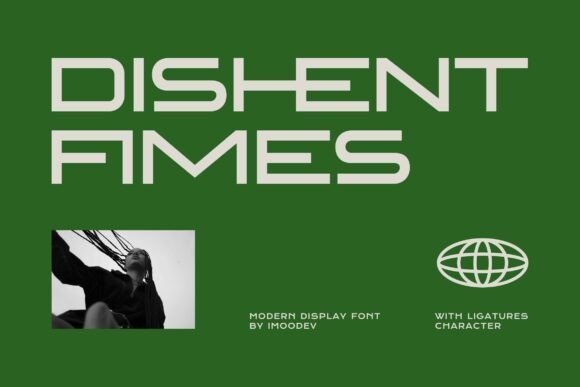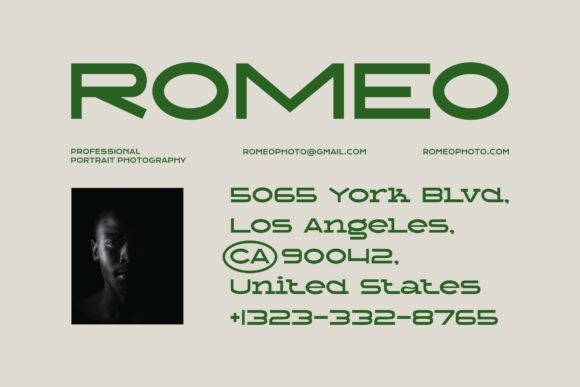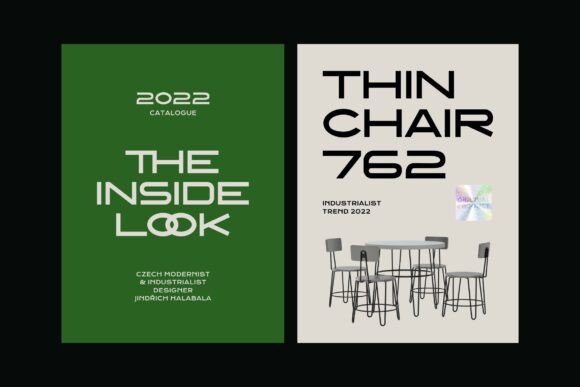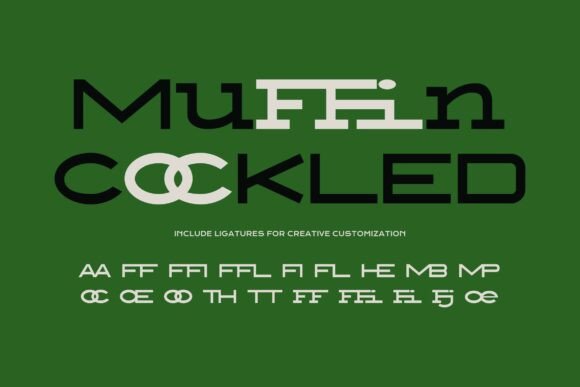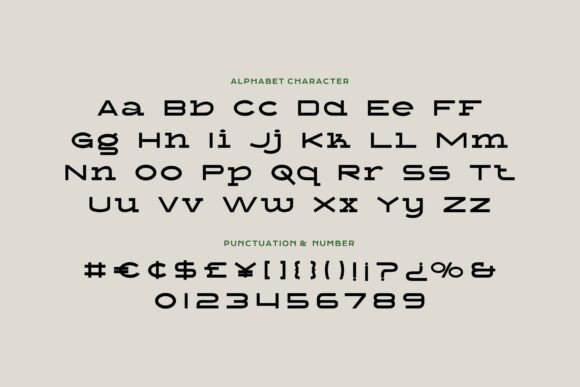
Unlock the Power of Modern Typography with the Didhent Fimes Font
Have you ever stared at a blank design canvas, searching for the perfect font to elevate your project and leave a lasting impression? We’ve all been there. As creatives, we crave fonts that not only convey our message but also reflect our unique style and vision. This is where the Didhent Fimes Font comes in – a futuristic and extended typeface designed to make a bold statement in the world of modern design.
With its sleek, geometric structure and industrial undertones, the Didhent Fimes Font adds a touch of contemporary minimalism to any project, while its expressive detail ensures that your message is conveyed with clarity and impact. Whether you’re working on a magazine spread, branding system, or poster design, this versatile font is sure to deliver.
Didhent Fimes Font Key Features
- Font Family: A unique, modern sans-serif font designed for digital use.
- Font Size: Supports font sizes from 8 to 72 points, with precise control over font scaling.
- Unique Characteristics: Features a distinctive x-height and a subtle, rounded edge to its letterforms, making it highly legible at small font sizes.
- Language Support: Includes comprehensive support for Latin, Greek, and Cyrillic scripts, as well as a range of special characters and diacritics.
Review of Didhent Fimes Font
Overall, I’m quite impressed with the Didhent Fimes Font. The designer has done a great job in creating a unique and stylish font that can add a touch of elegance to any design project. ✨
The font has a nice balance of curves and lines, making it versatile enough to be used in a variety of contexts, from headlines to body text. The characters are well-designed and visually appealing, with a clear and legible structure.
The font also includes a wide range of characters, including accented letters, punctuation, and symbols, making it suitable for use in languages that require these characters.
- The font may not be suitable for use in very small sizes, as some characters can become difficult to read.
- The font lacks a true italic version, which can be a limitation for designers who need to create italic text.
- The font’s weight range is limited, with only a few weights available.
Despite these limitations, I would still recommend the Didhent Fimes Font for designers looking for a unique and stylish font to add some flair to their designs.
Didhent Fimes Font is ideal for:
- Designing creative and eye-catching graphics.
- Creating unique and memorable brand identities.
- Adding a touch of elegance and sophistication to documents and presentations.
Q: Is Didhent Fimes Font available in different weights?
Yes, Didhent Fimes Font comes in multiple weights, including Light, Regular, Medium, Bold, and Black. These weights provide flexibility for designers to create visual hierarchy and emphasis in their designs.